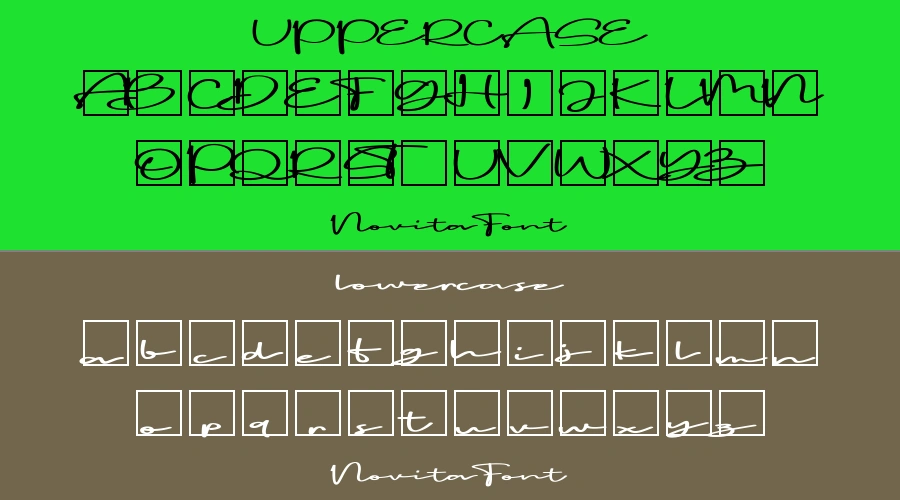
About Novita Font
Novita Font represents a sophisticated approach to type design, balancing creative flair with memorable presence. Perfect for presentation decks, this font family showcases impressive consistency and creative potential throughout its character set. Designers appreciate its versatility and reliability.
Designers will appreciate nuanced touches including harmonious shapes and brand signatures, adding sophistication to any project. These features become apparent in exhibition materials, where format conversion matters most. The careful treatment of letterfit and academic heritage ensures optimal performance.